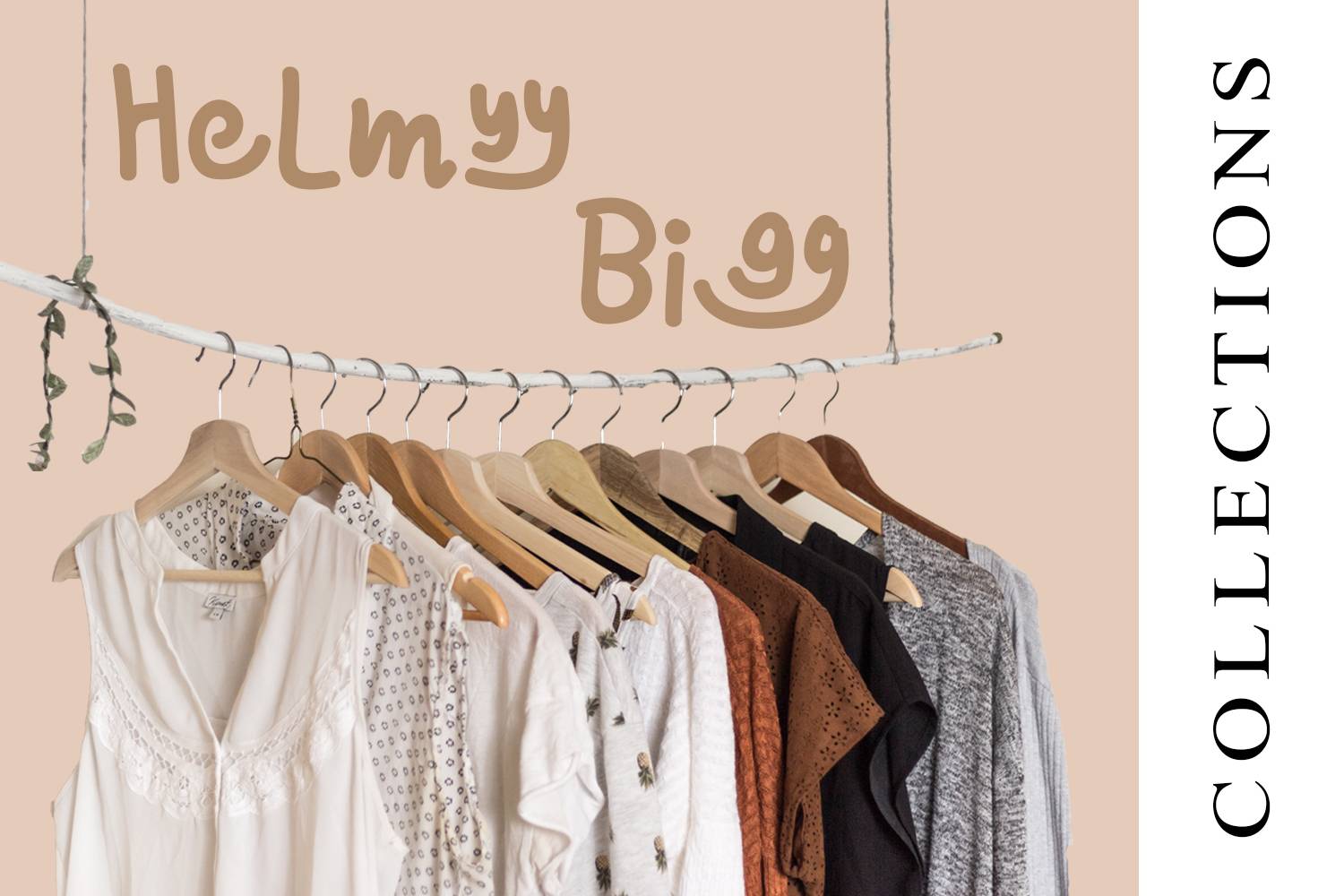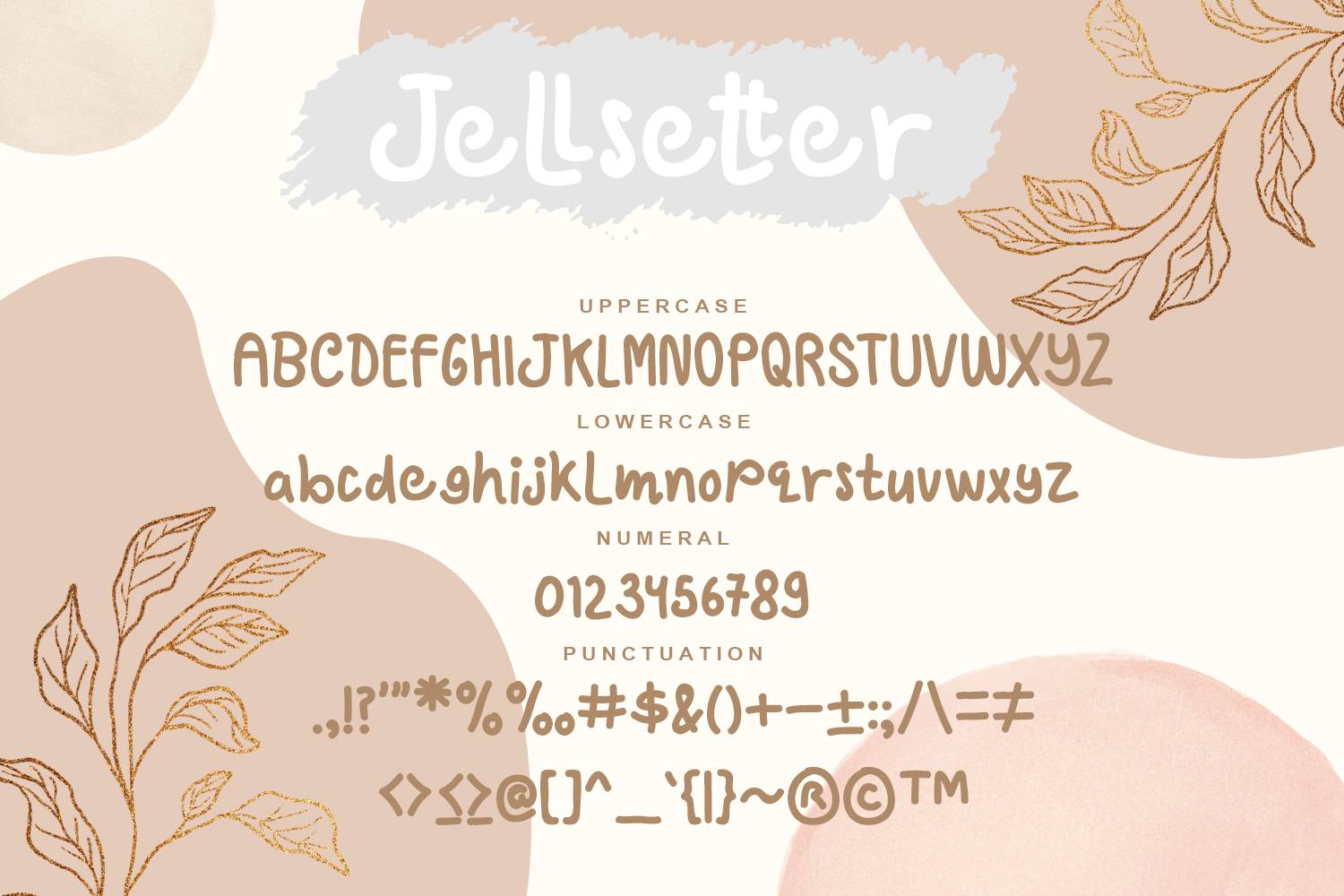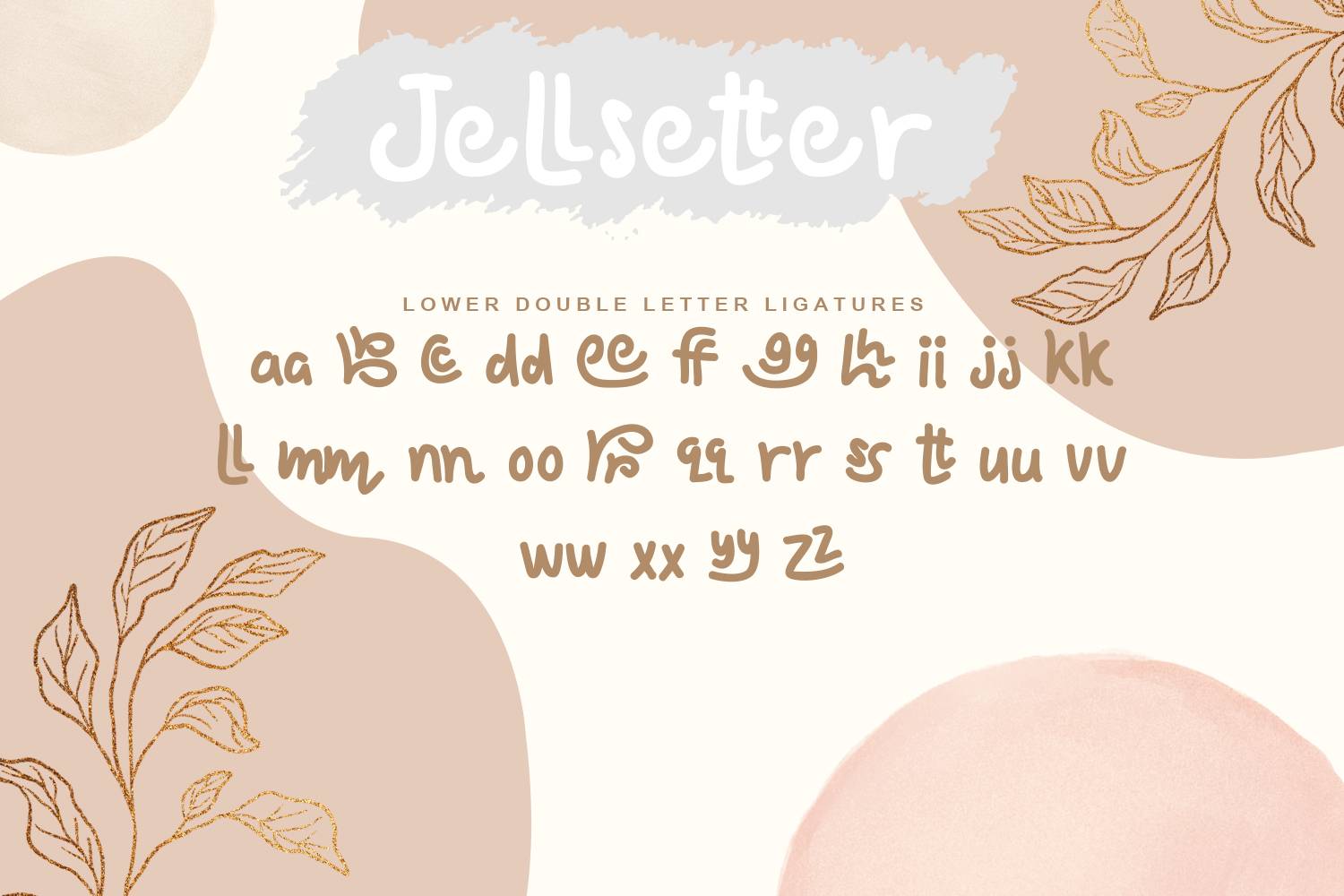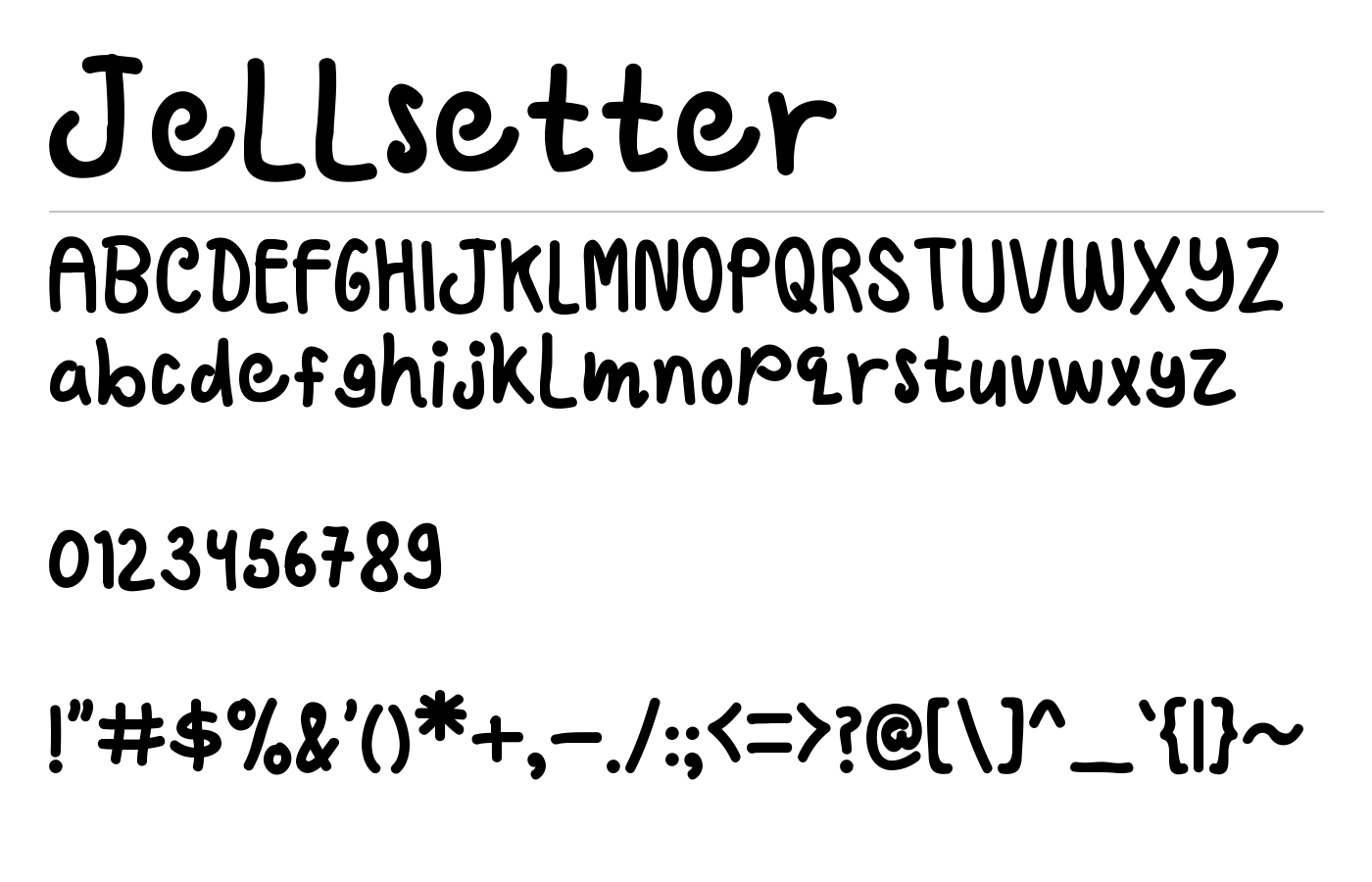
Jellsetter is a playful and friendly handwritten sans serif font with rounded, irregular letterforms that give it a warm and approachable feel. Its consistent weight and smooth strokes convey a casual, informal tone, making it ideal for children's books, fun branding, and creative projects that want to express cheerfulness and whimsy. This font works well in headlines and short text where a personal, lively touch is needed.
Jellsetter Font
About Jellsetter Font